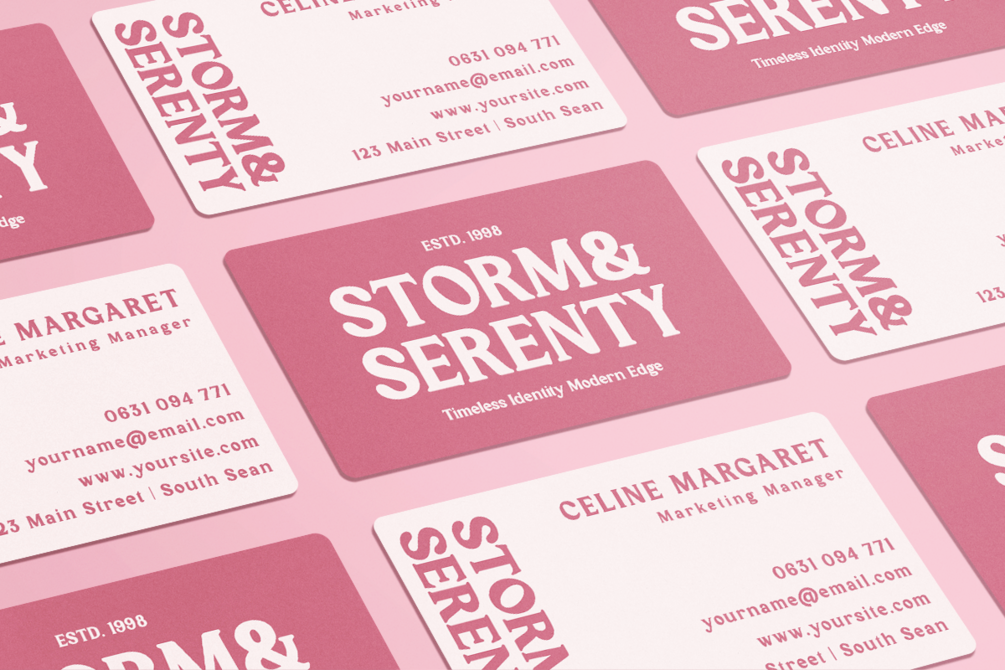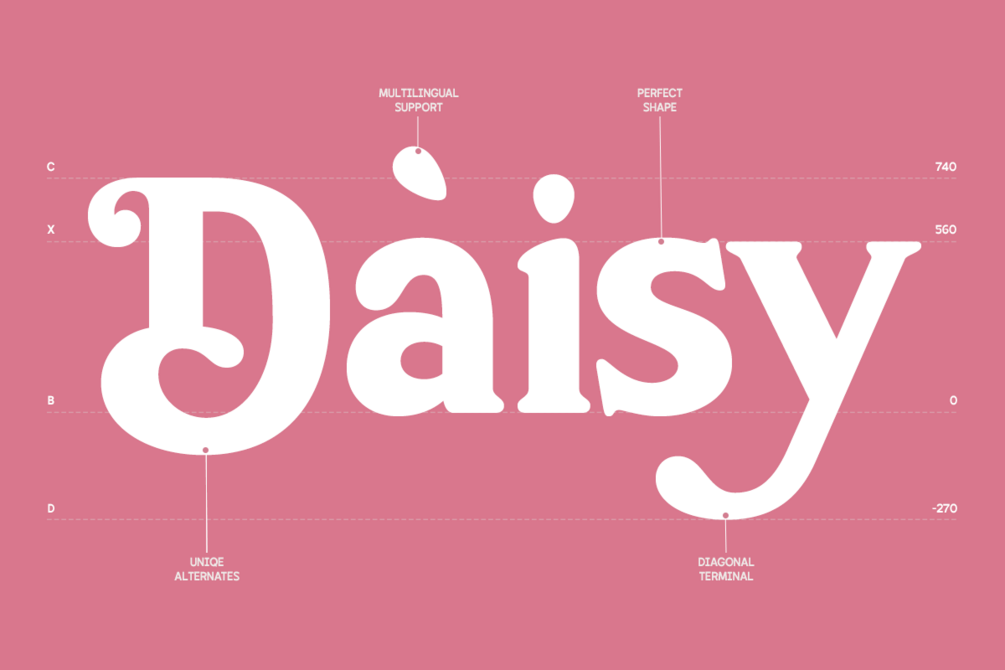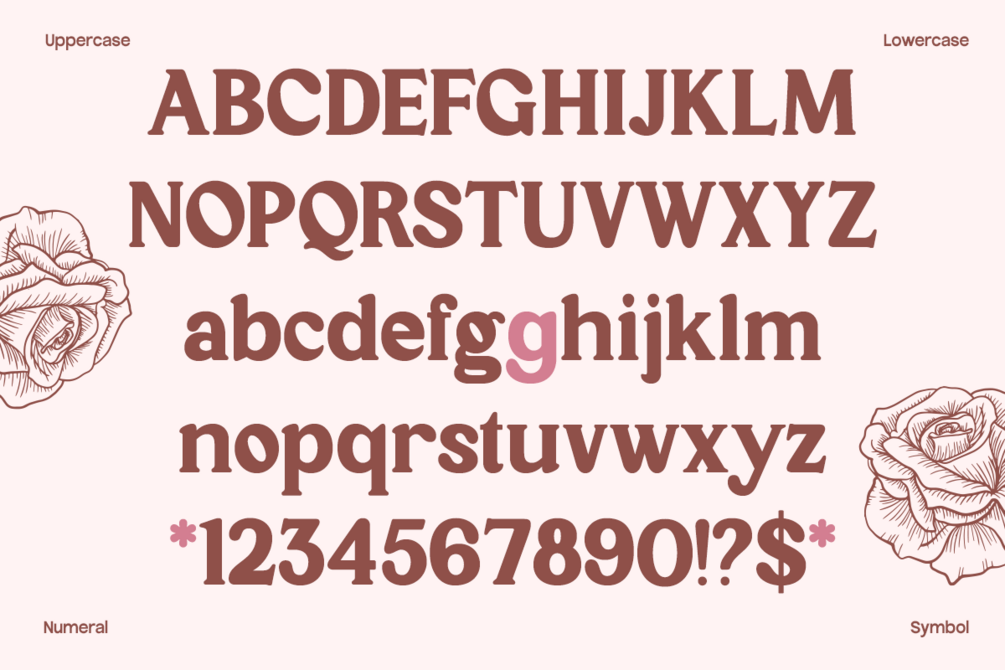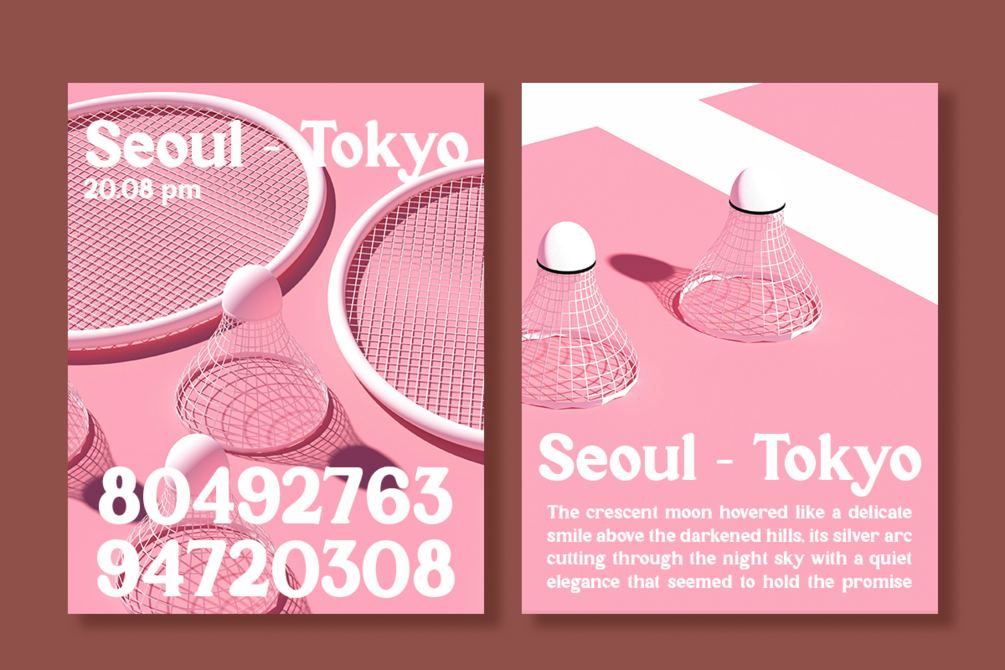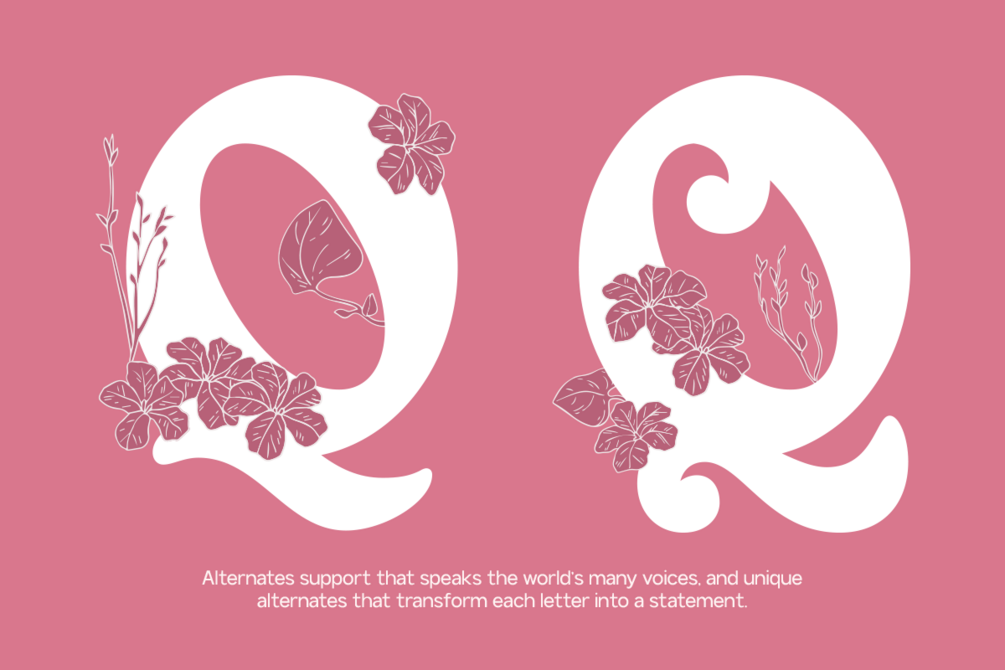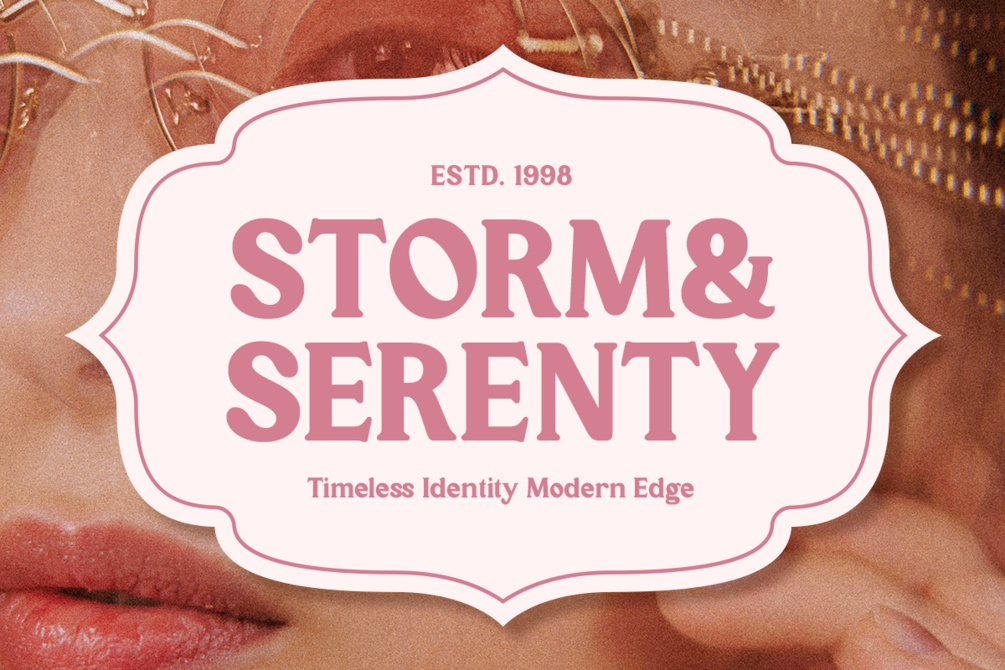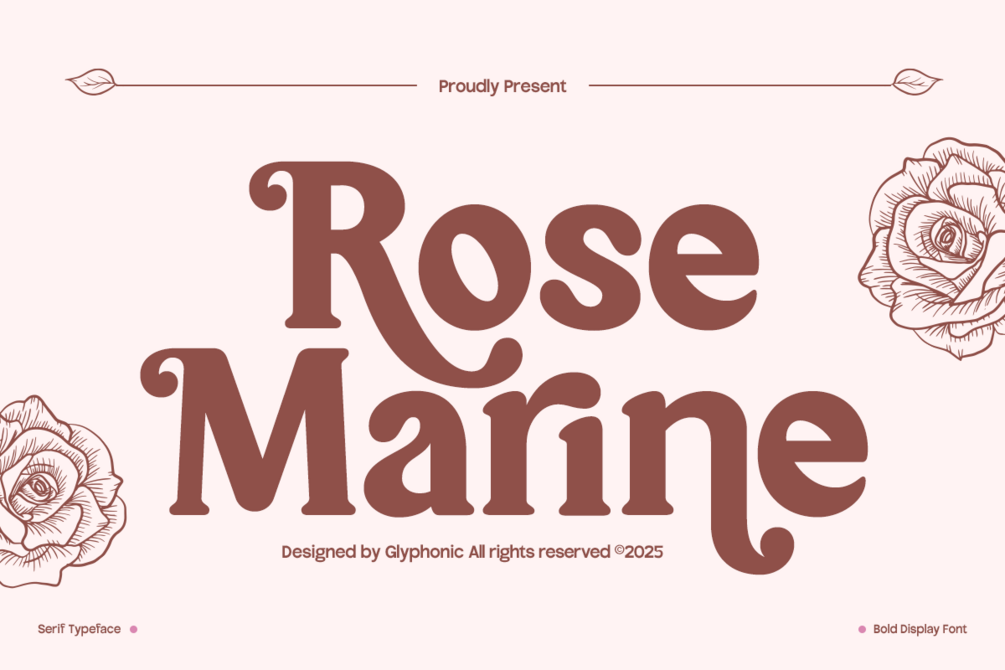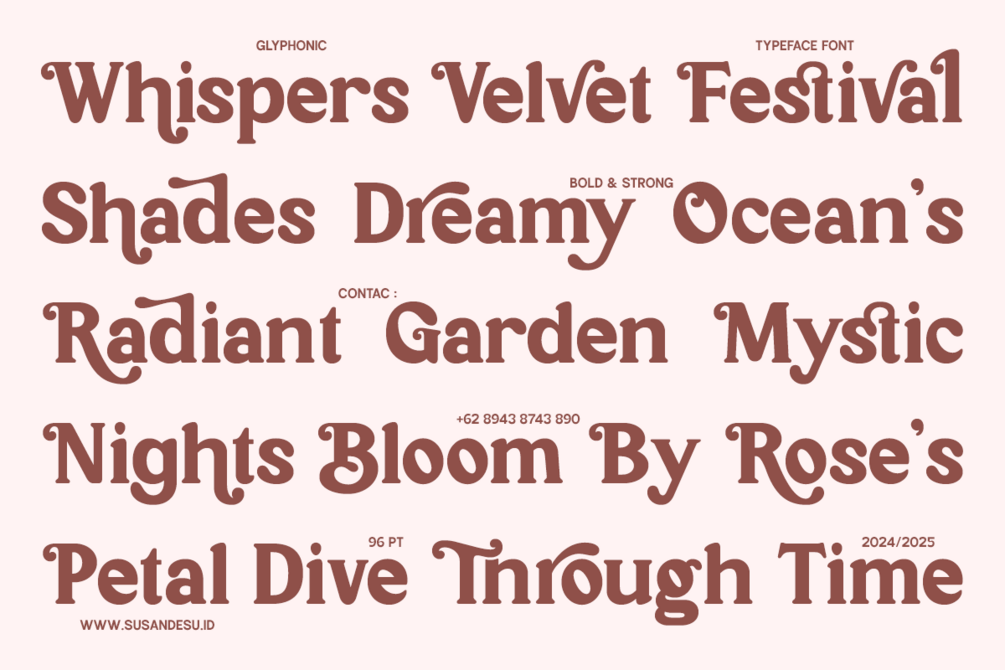
GC Rose Marine – Timeless Retro Serif
GC Rose Marine – Timeless Retro Serif is a classic serif typeface infused with retro charm and enduring elegance. Inspired by timeless typography of the past, it blends nostalgic details with modern refinement, making it versatile for both vintage-inspired and contemporary design needs. With graceful curves, balanced serifs, and a sophisticated rhythm, it delivers a distinctive voice that stands out in any medium.
Perfectly suited for branding, editorial layouts, packaging, posters, and striking visual identities, GC Rose Marine captures a sense of heritage while remaining fresh and relevant. Its refined proportions and crafted detailing ensure adaptability without losing character. Whether you’re creating bold headlines, elegant titles, or expressive logos, this font adds personality, sophistication, and timeless appeal to your typography.
• Uppercase & Lowercase
• Numbers & Punctuation
• Retro-Inspired Serif Details
• Multilingual Support (170+ Languages)
Bring nostalgia, elegance, and timeless character to your design with GC Rose Marine – Timeless Retro Serif.